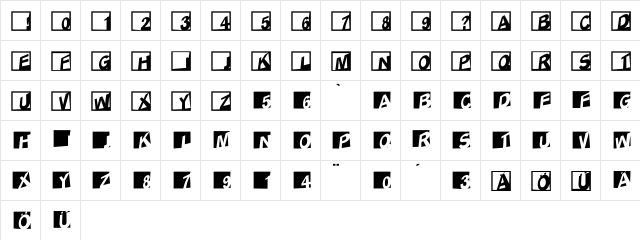
ABCLogosXYZCrazy Regular
Design Context for ABCLogosXYZCrazy Typeface
ABCLogosXYZCrazy is a composed and adaptable typeface that performs quietly and consistently across a wide range of design contexts.